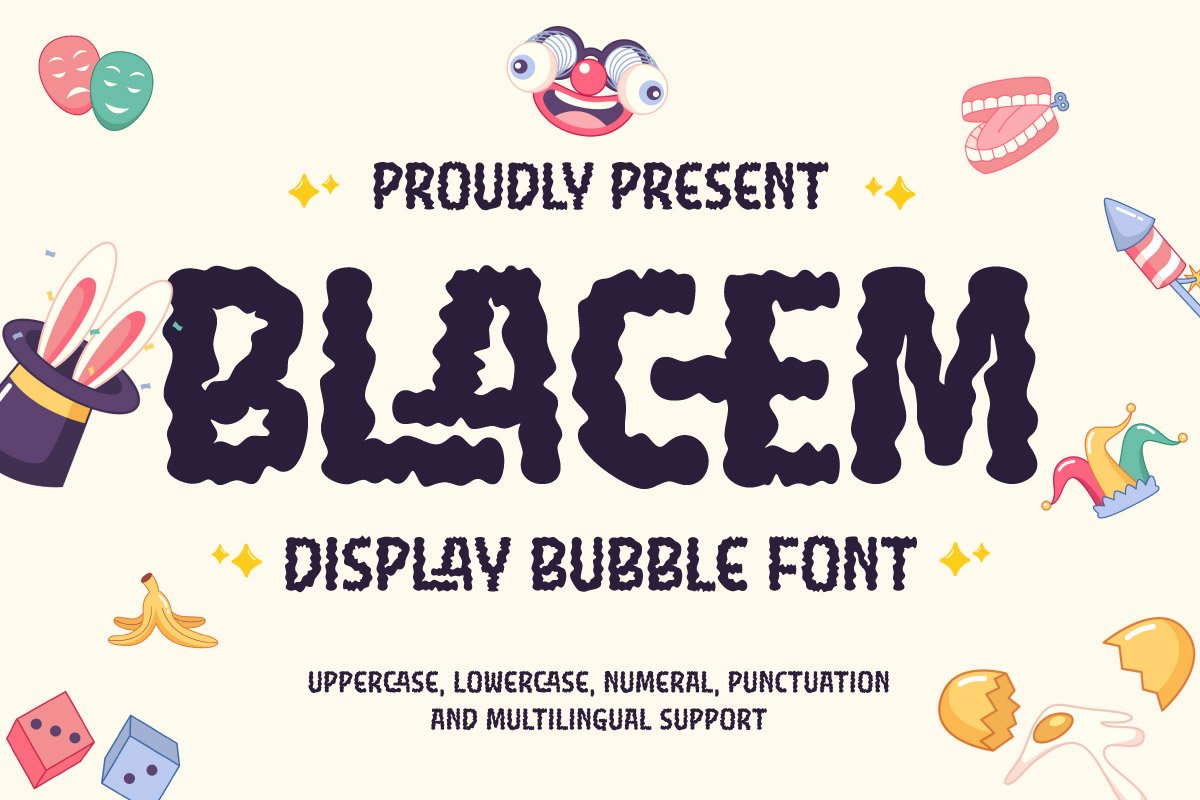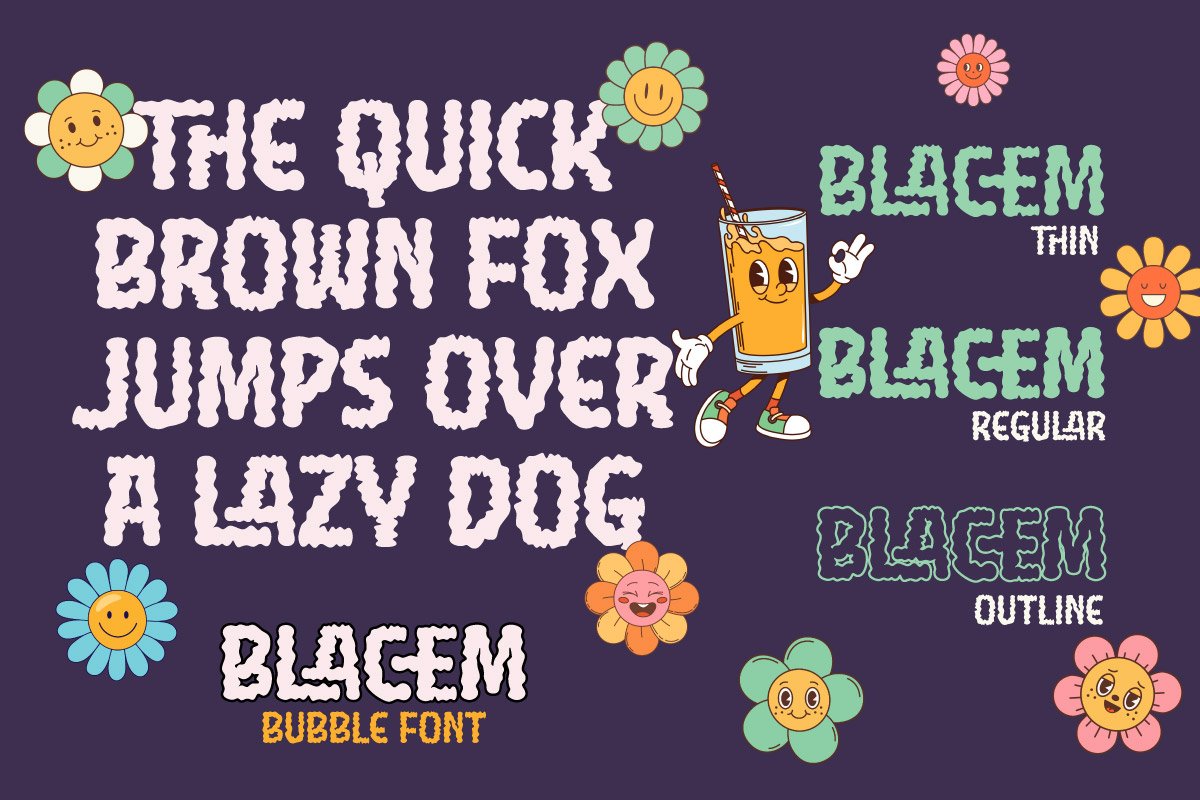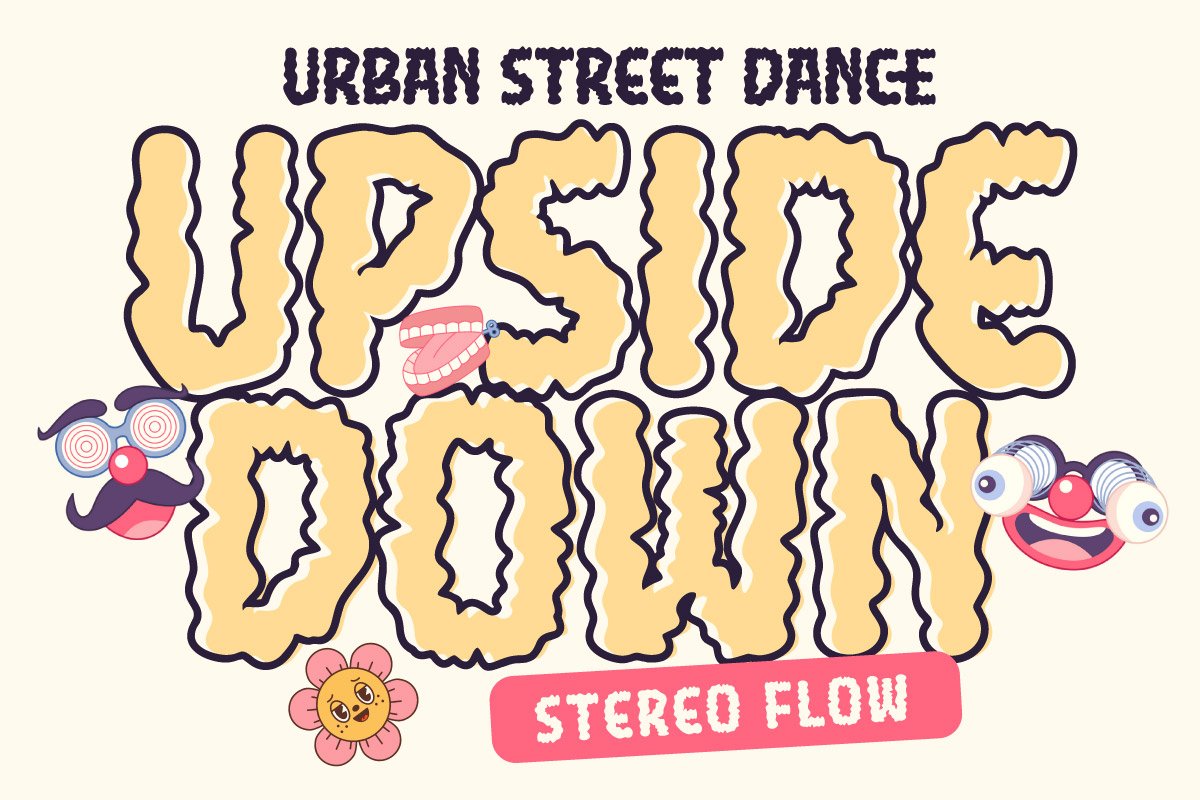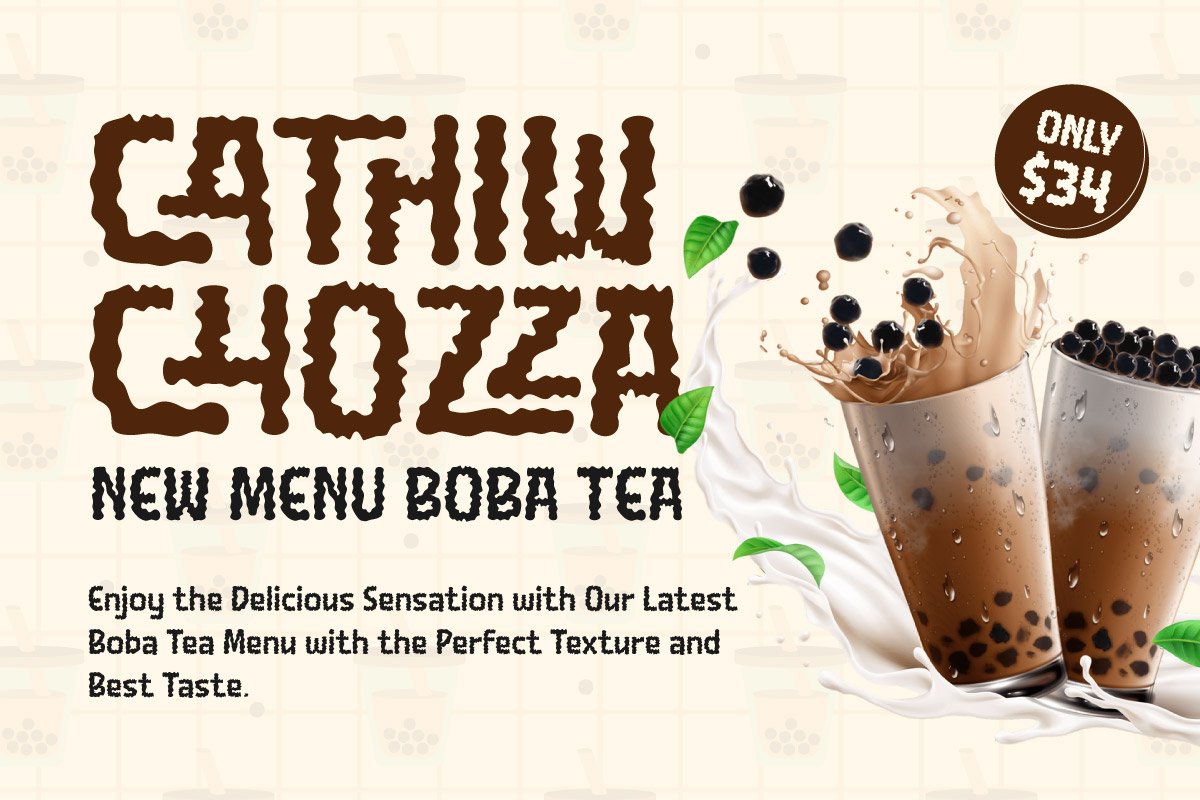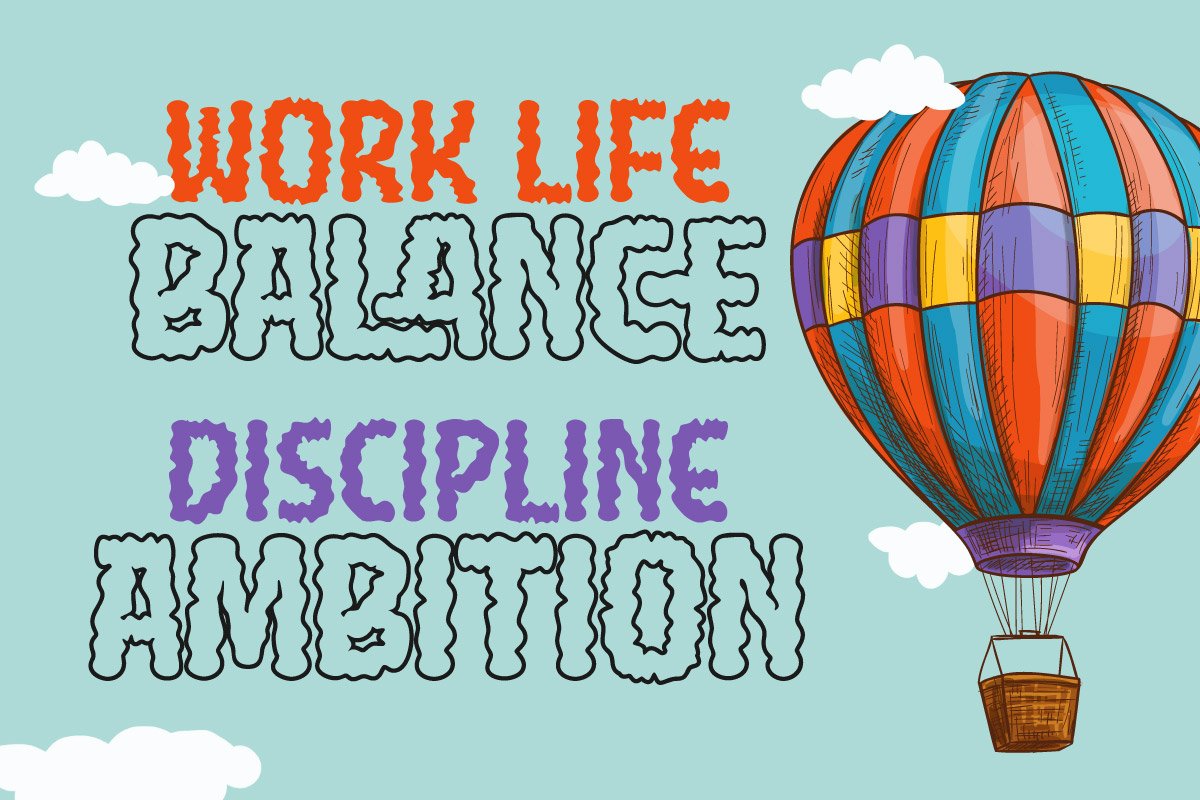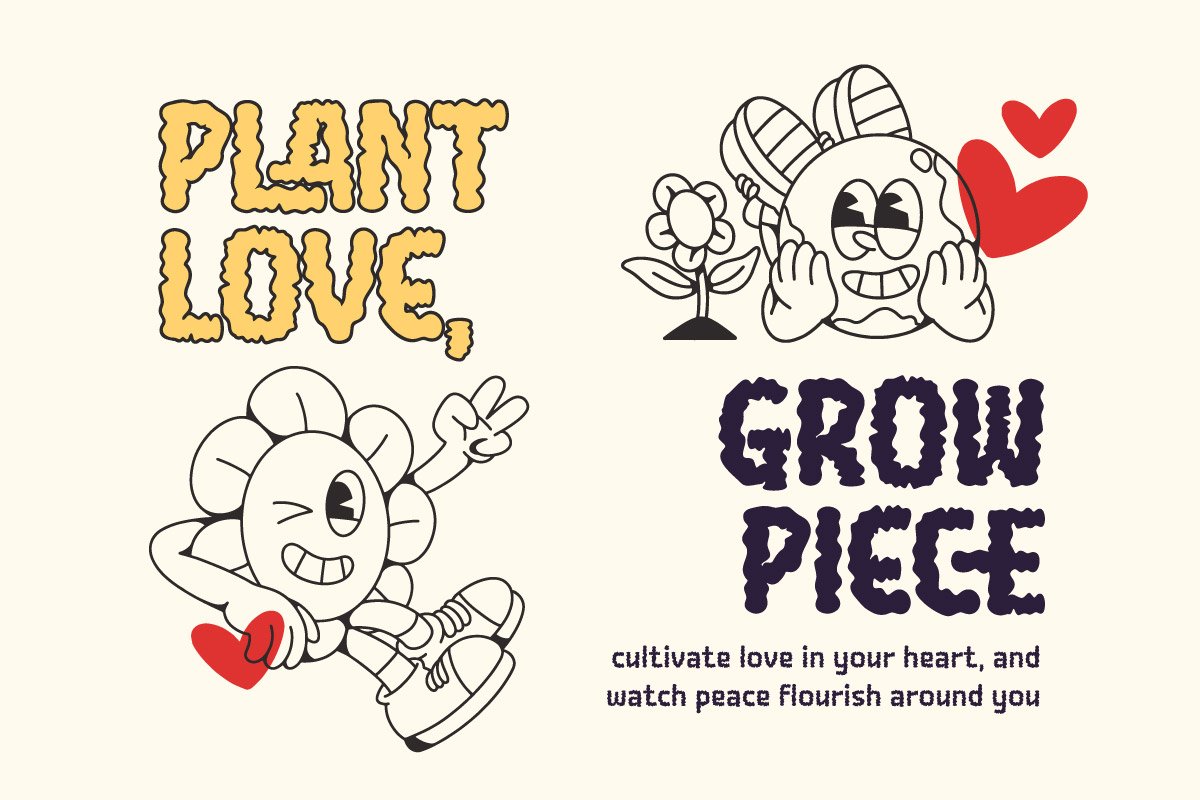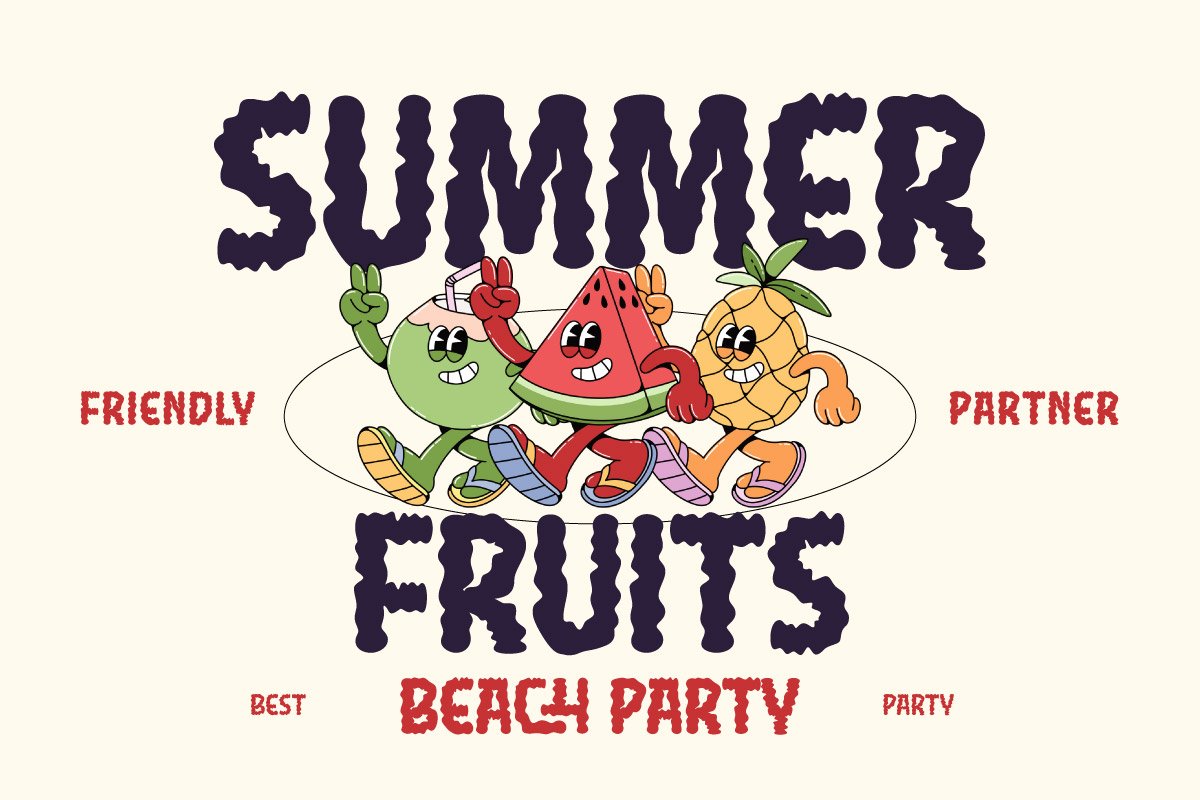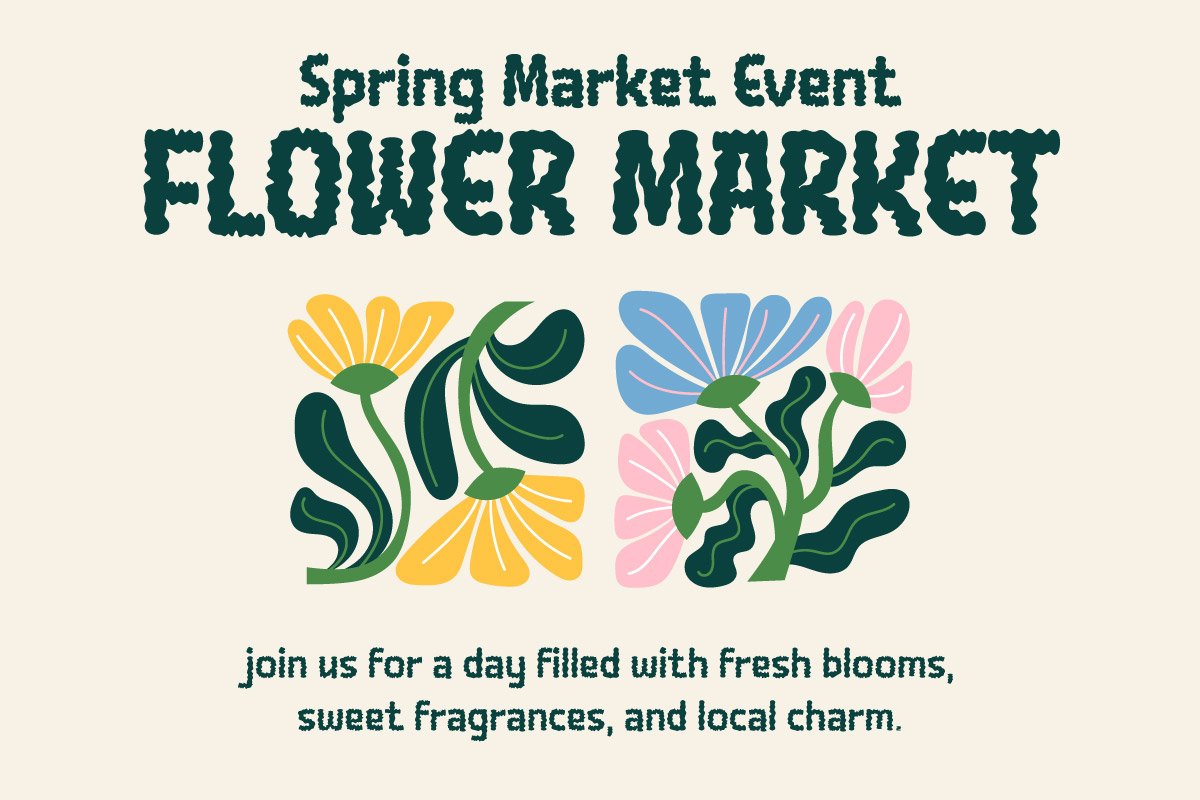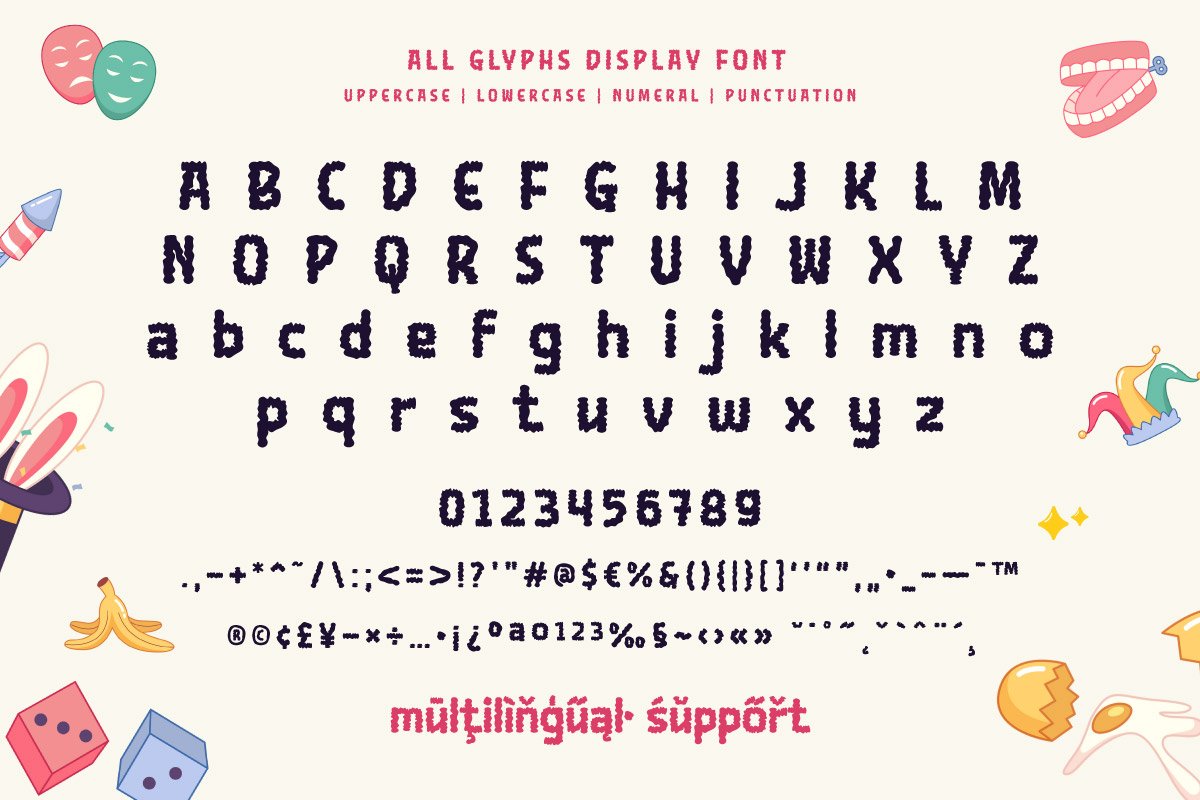
Blacem – Display Bubble Font
Blacem is a playful and bold display bubble font that brings fun, lightness, and a sense of joy to any creative project. With three versatile styles—Thin, Regular, and Outline—Blacem gives you the freedom to mix and match for eye-catching headlines, children’s book covers, packaging, posters, and cartoon visuals.
Each character in Blacem is designed with rounded shapes, a bubbly personality, and smooth contours, making it perfect for designs that aim to be cheerful and expressive. Whether you’re creating fun illustrations, branding for kids’ products, or engaging content for digital platforms, Blacem will help your message pop with vibrant energy.
Let your creativity expand with this multi-style font and make your visual identity as fun and fresh as a bubble!